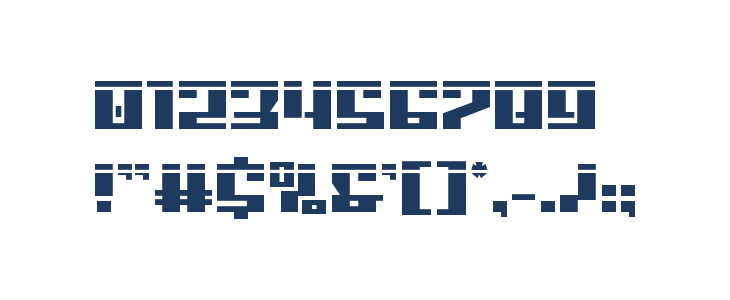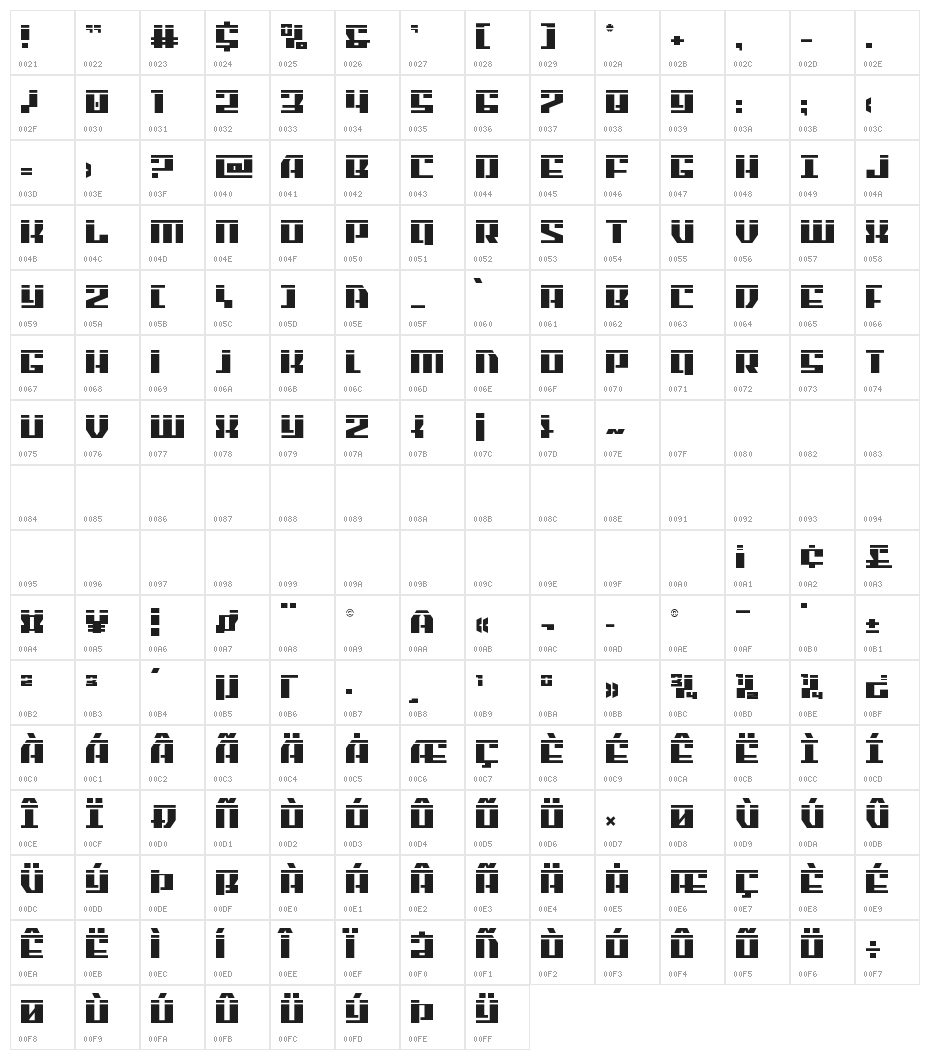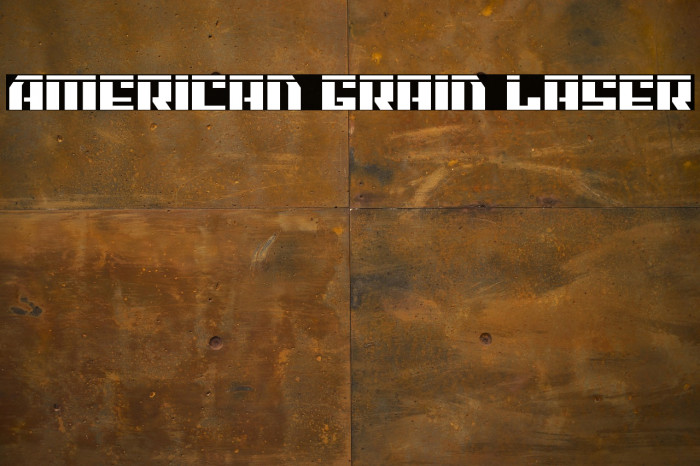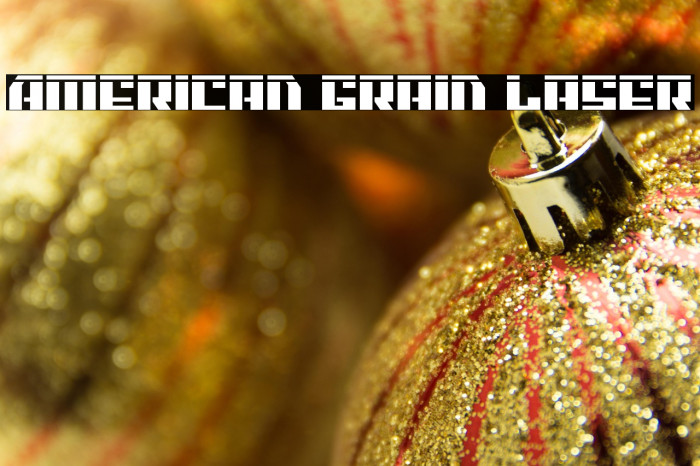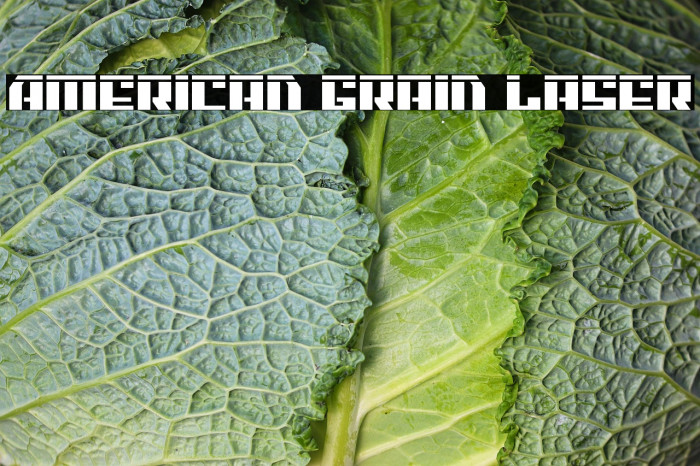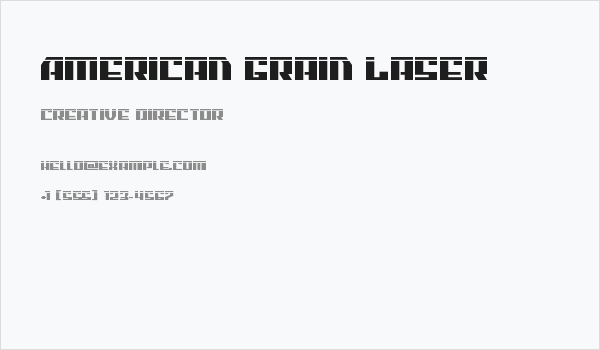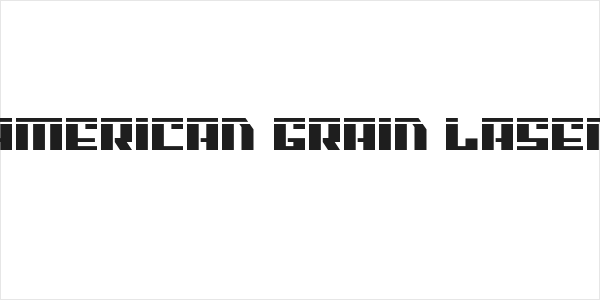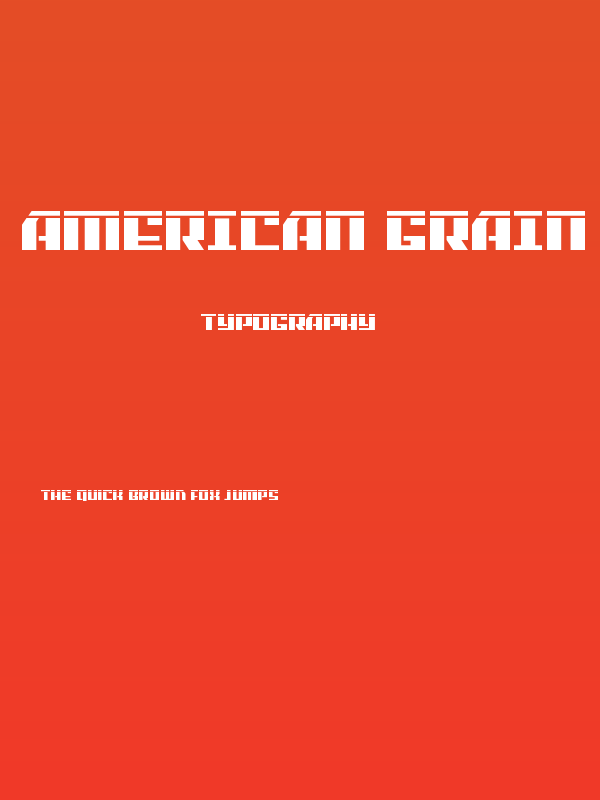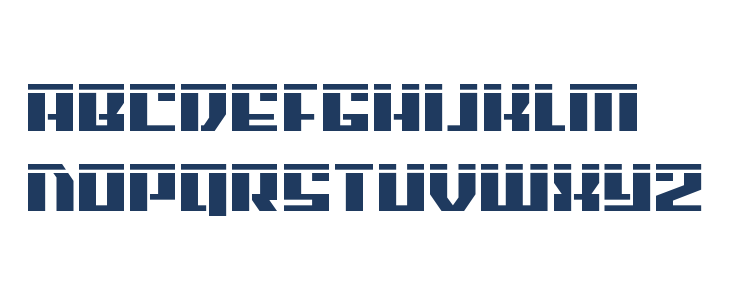
American Grain Laser Font
American Grain Laser Description
This font features a bold, geometric design with a distinctly modern and industrial feel. The characters are constructed with sharp angles and straight lines, giving them a blocky, robust appearance. The uppercase and lowercase letters maintain a consistent height, contributing to a uniform look across the text. The numerals and special characters follow the same design principles, ensuring cohesion throughout. The font's strong presence makes it ideal for impactful headlines and attention-grabbing designs.
| Proposed Projects | Ideal for branding, posters, and signage that require a strong, modern aesthetic. |